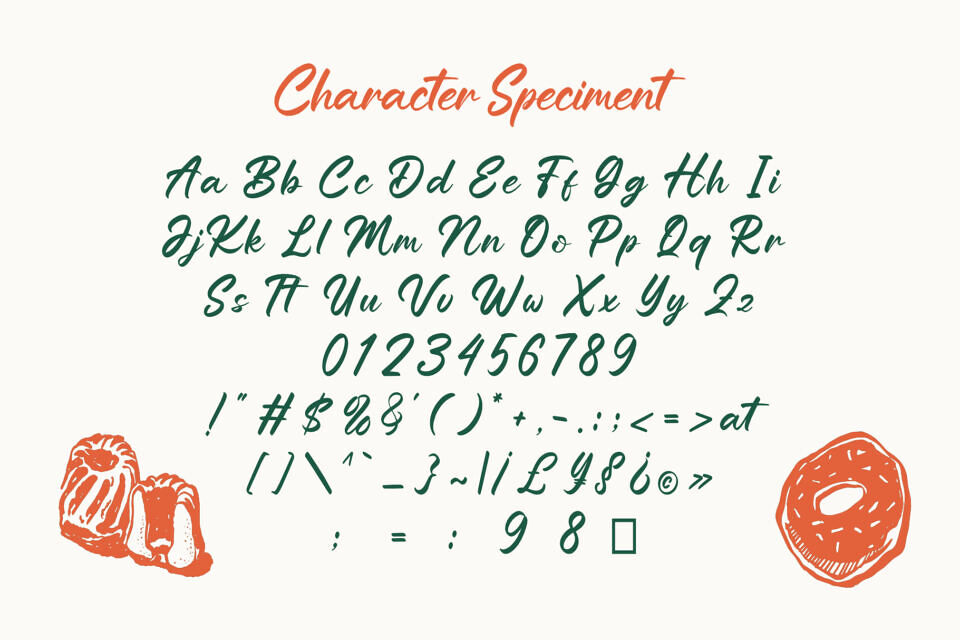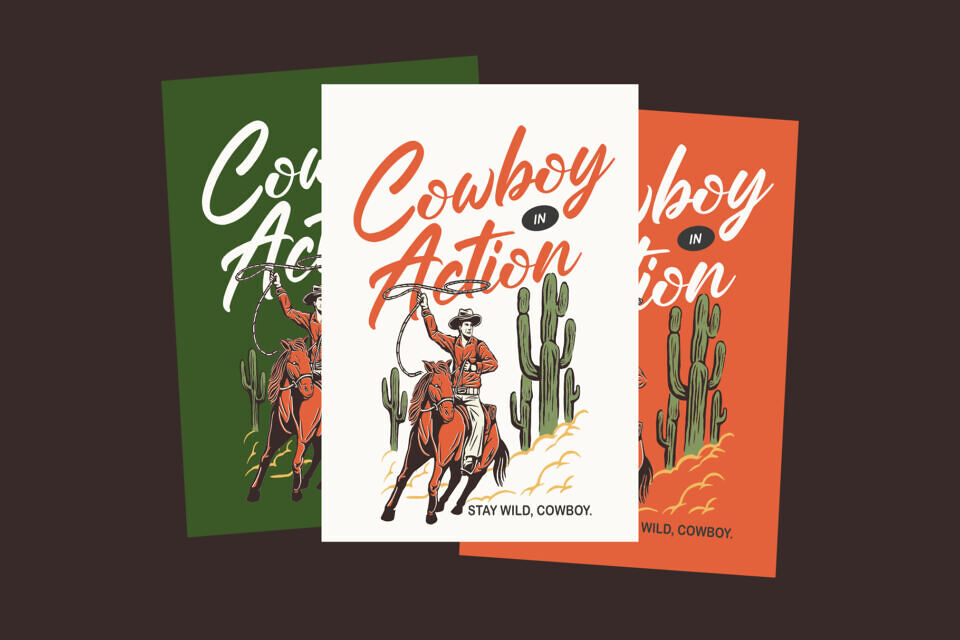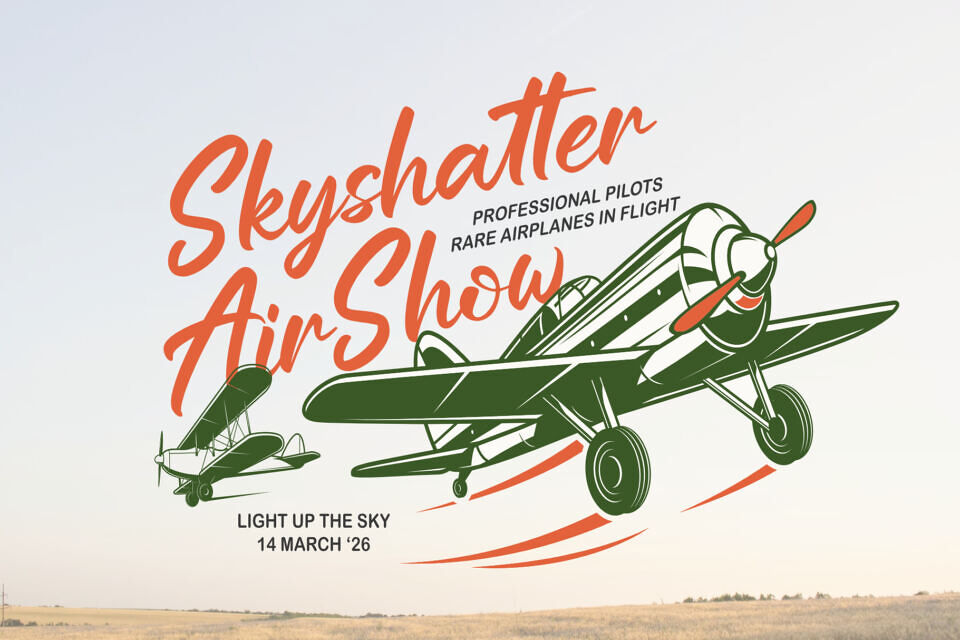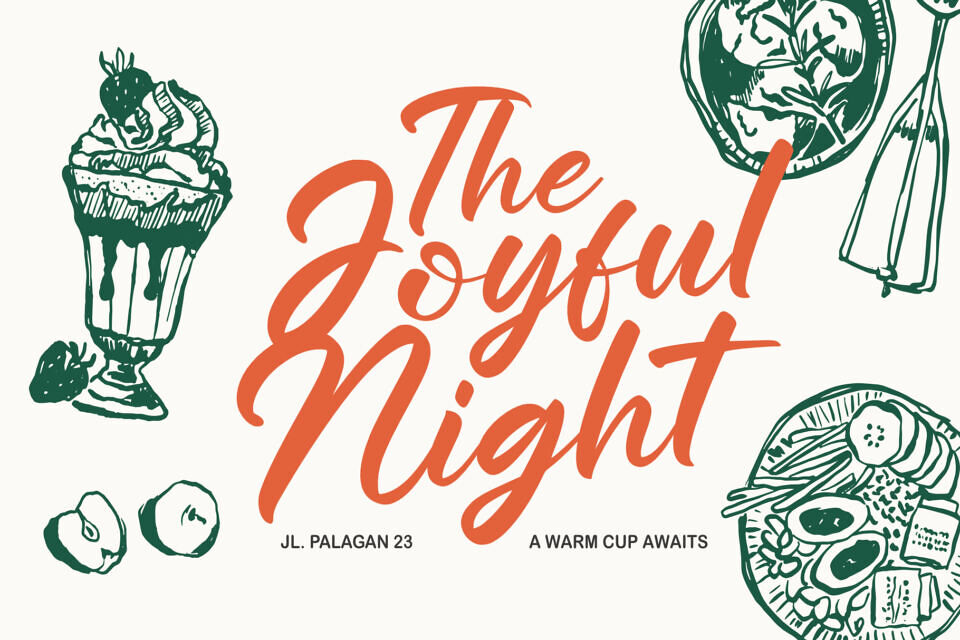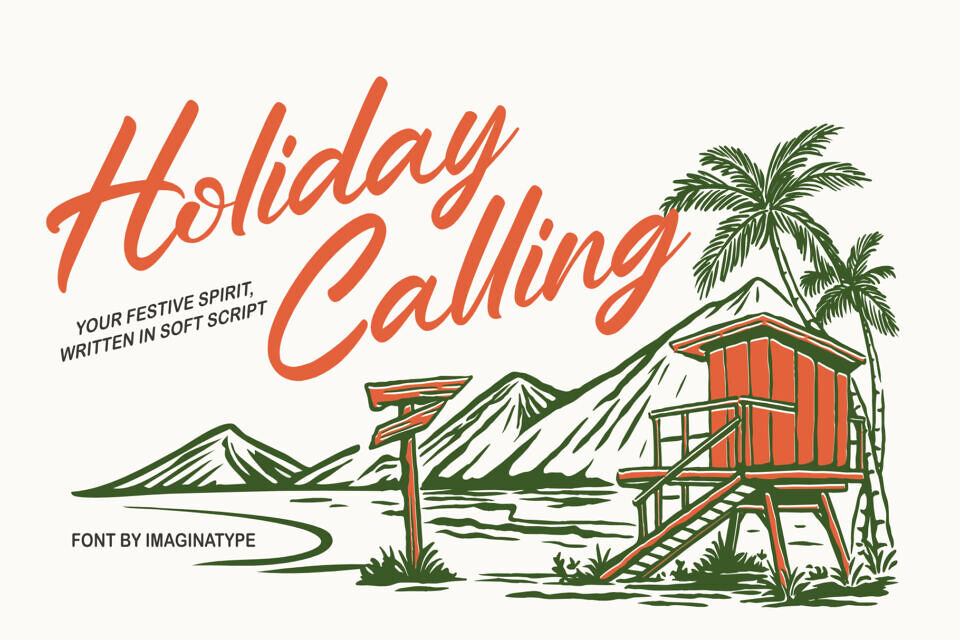
Holiday Calling – Non Commercia Font
Answer the call of adventure and nostalgia with Holiday Calling, a vibrant, energetic soft script typeface that immediately transports your audience to a sunny, vintage vacation destination.
This brush-style script is characterized by its chunky, quick-stroke forms and intentionally imperfect baseline, lending it an authentic, hand-painted feel reminiscent of mid-century resort posters and retro travel advertisements.
Perfect for travel-themed merchandise, vintage-style packaging, rugged outdoor branding, greeting cards, gift tags, restaurant menu titles, tourism logos or branding, and any holiday-themed project, Holiday Calling brings a heartfelt and inviting atmosphere to every design.